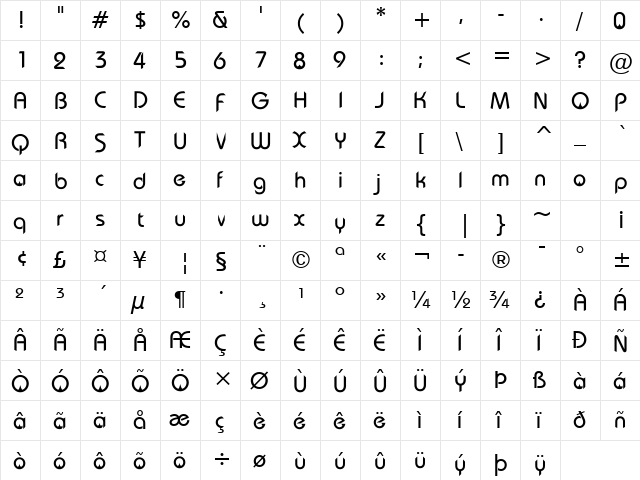
Bauhaus Md BT Medium Font Preview
Bauhaus Md BT Medium
Design Context for Bauhaus Md BT Typeface
Bauhaus Md BT takes a measured approach to typography — its balanced proportions and neutral character make it a reliable workhorse for both digital and print work.